Marmite Defontes
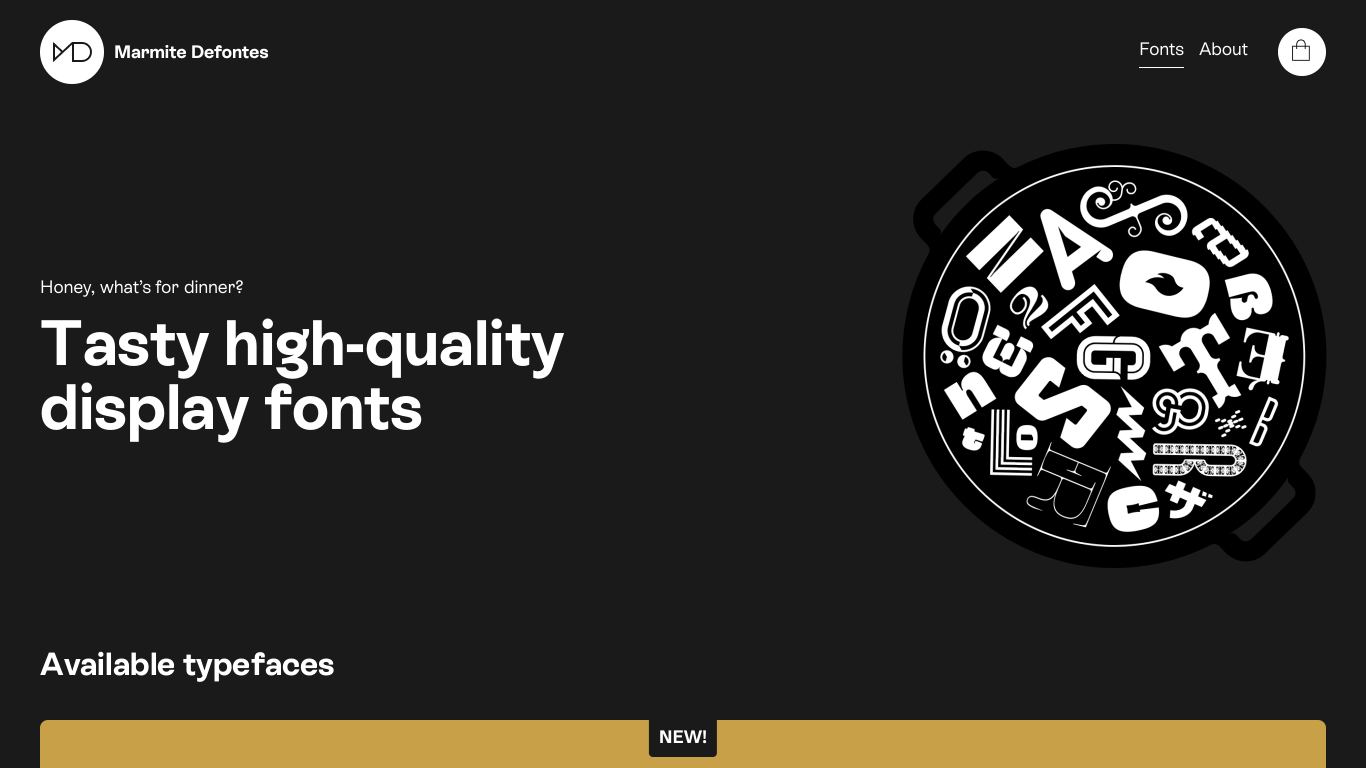
Switzerland
2023
Marmite Defontes is a digital type foundry founded by Guillaume Berry, specialising in expressive display typefaces. It focuses on creating visually impactful fonts available exclusively on its website. With a philosophy of "serious fun," Marmite Defontes designs fonts that are enjoyable both to create and use. Their offerings include a unique mix of letters, symbols, and glyphs, reflecting the craft of font-making.